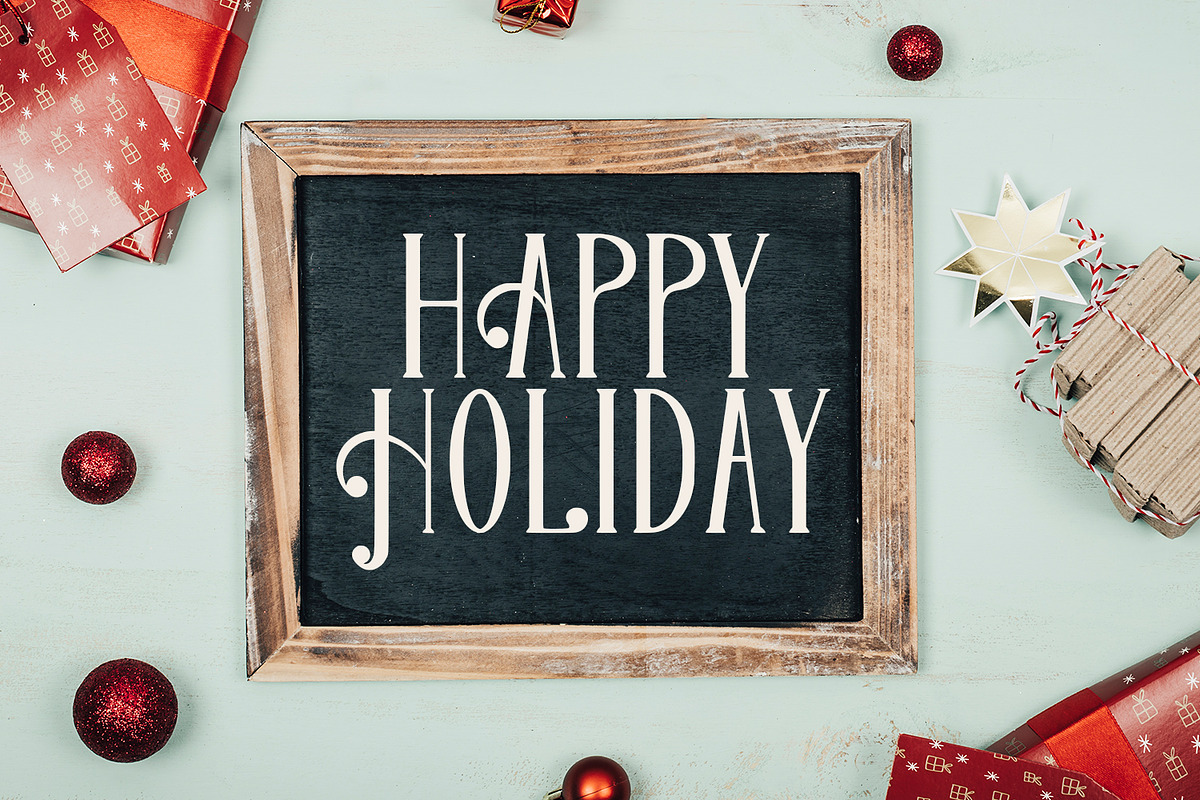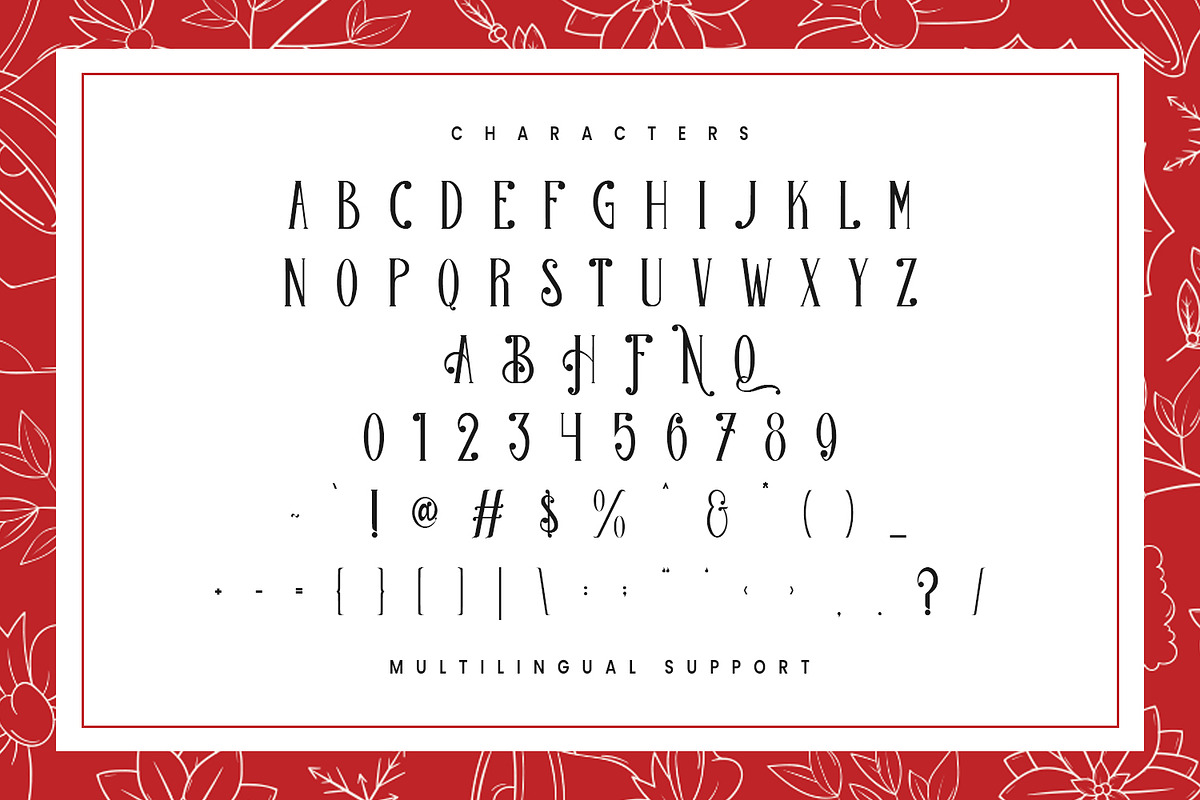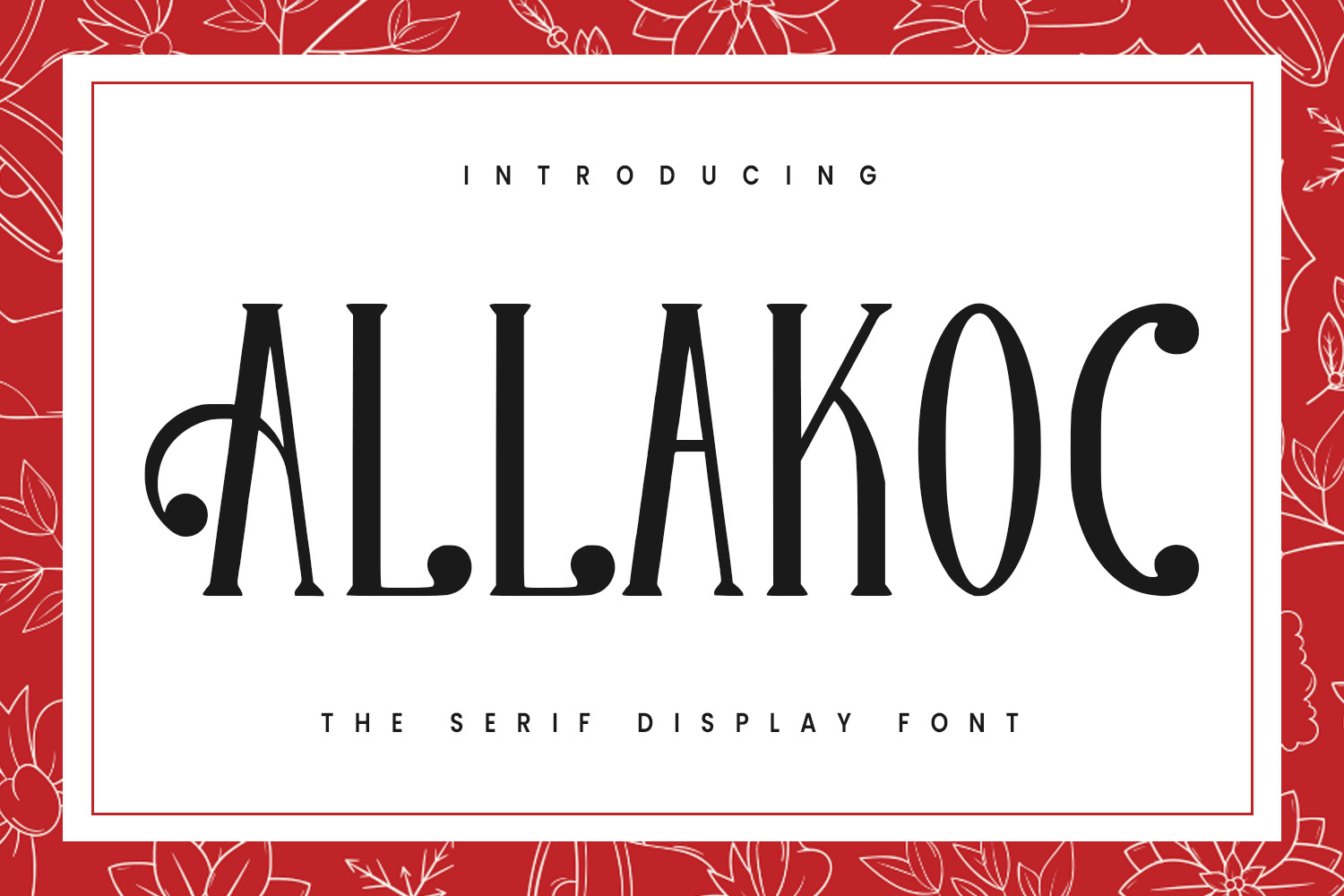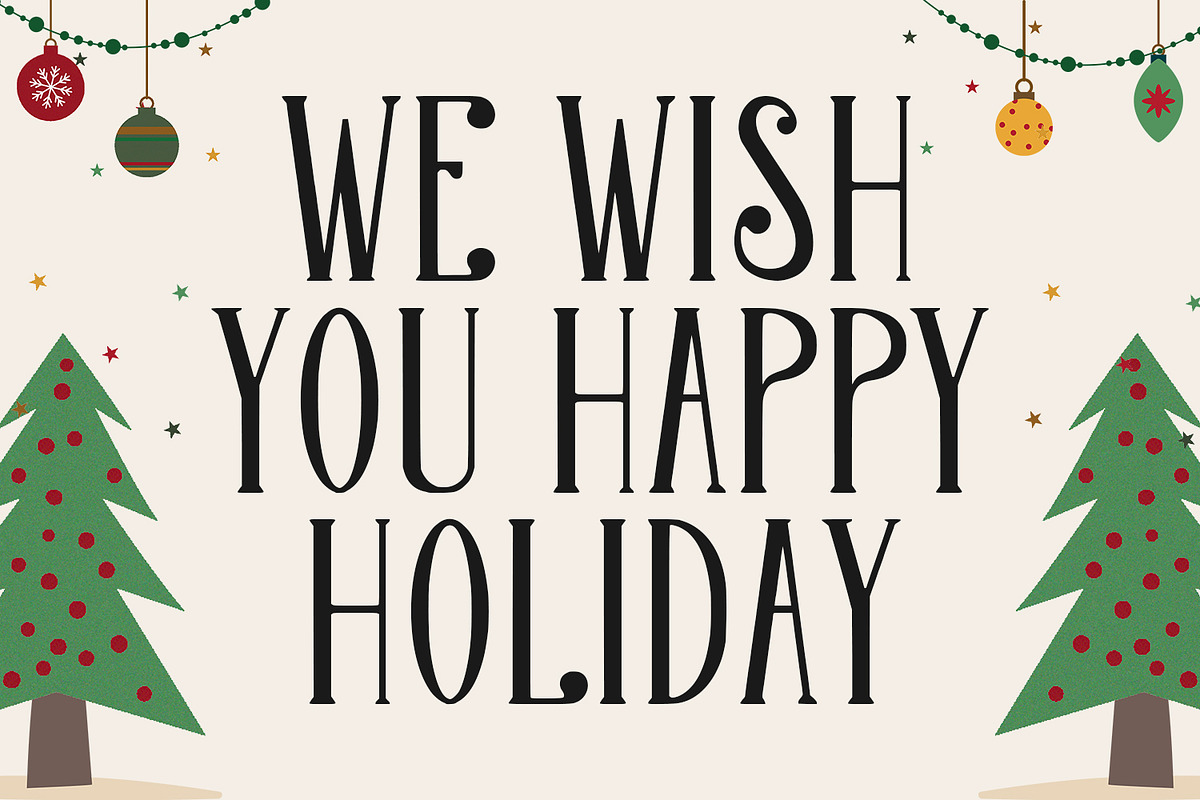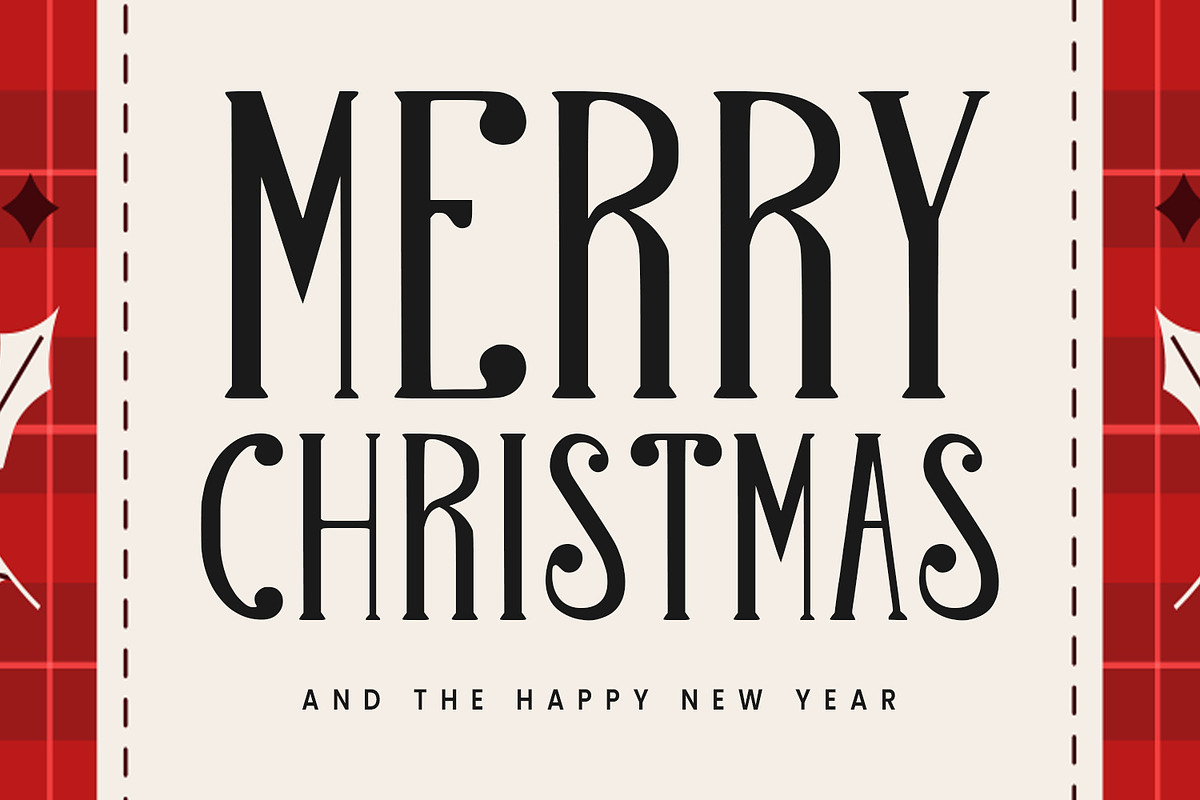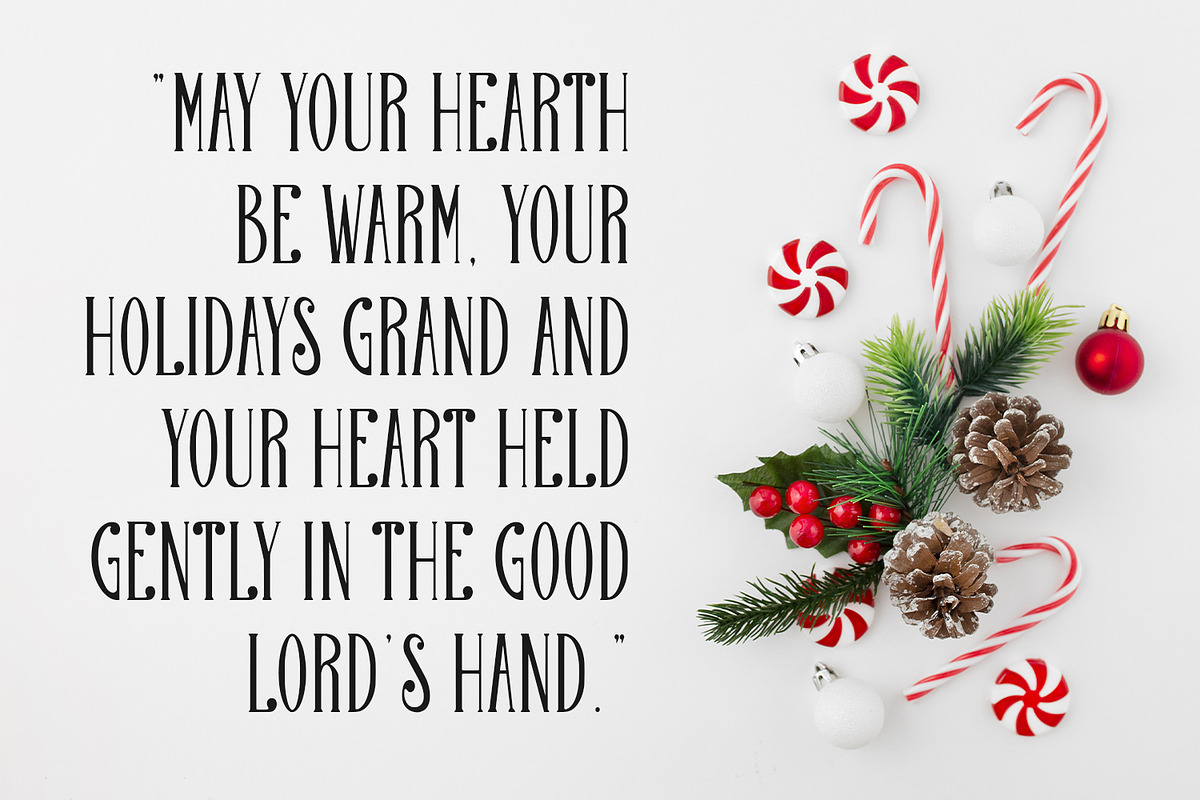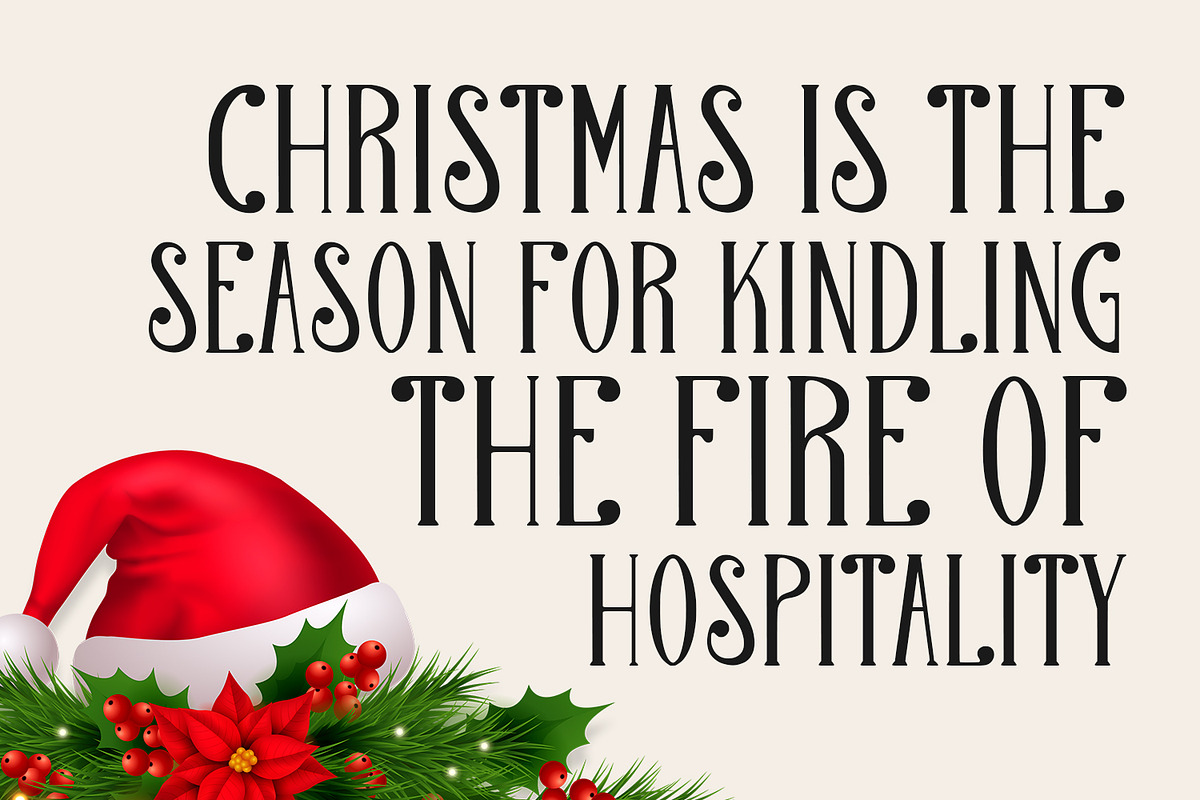
Allakoc Serif Display Font
Allakoc is a Caps and Small Caps Display Serif font. With light contrast stroke, Strong character with a bit of alternates. To give you an extra creative work. Allakoc font support multilingual more than 100+ language. This font is good for logo design, Social media, Movie Titles, Books Titles, a short text even a long text letter and good for your secondary text font with sans or script. Make a stunning work with Allakoc font.